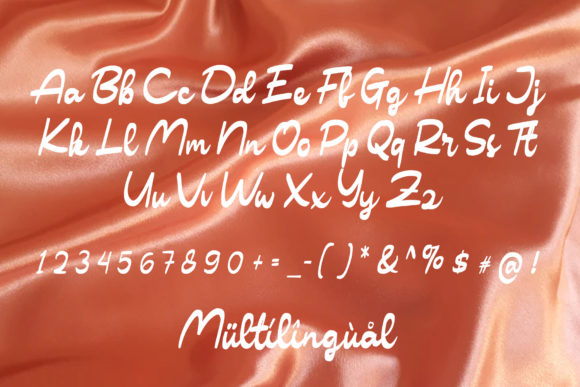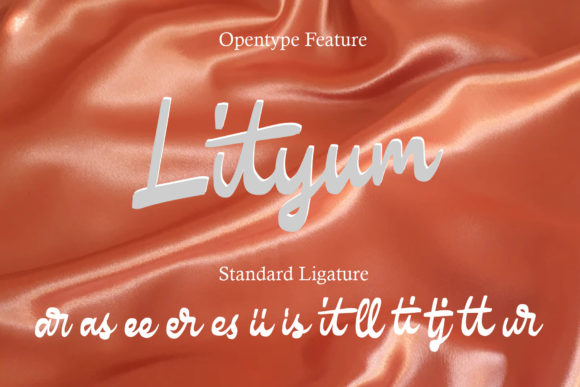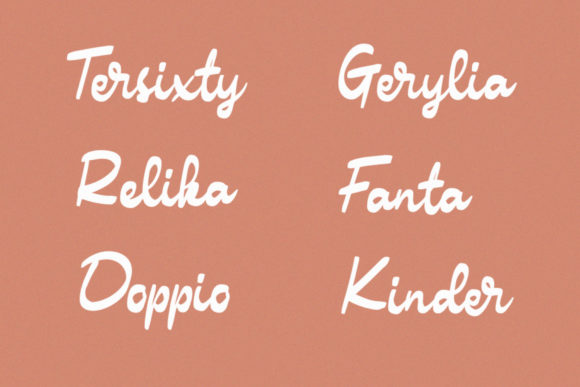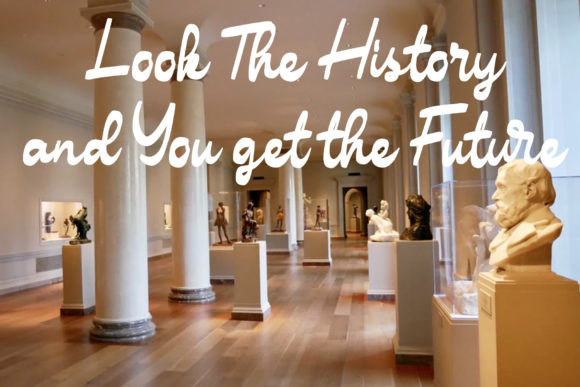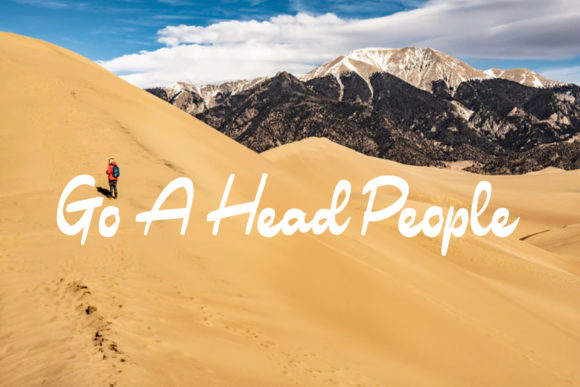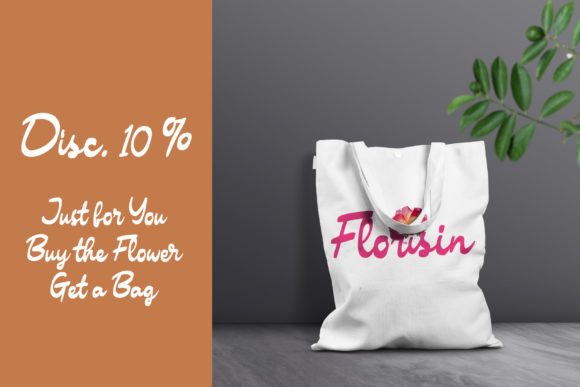
Introduction to Hicksar Font
Have you ever been working on a creative project, pouring your heart and soul into every detail, only to feel like something is missing? That’s when I discovered the Hicksar Font – a game-changer for any design enthusiast. Its sweet and dainty handwritten style adds an incredibly joyful touch to any design, elevating it from good to great.
With Hicksar Font, the possibilities are endless. From wedding invitations to social media graphics, this versatile font is the perfect addition to any design project. So why settle for ordinary when you can make your designs extraordinary with the Hicksar Font?
Key Features of Hicksar Font
- Unique characteristics include a bold, modern design and a wide range of stylistic options for customization.
- Perfect for use in digital design, print materials, and other creative projects where a distinctive font is desired.
Honest Review: Hicksar Font
I recently had the opportunity to work with the Hicksar Font for a creative project and I must say it was a pleasant experience. As a designer, I appreciate a good design resource that can elevate my work and make it stand out.
The Hicksar Font has a unique and stylish design that can add a touch of sophistication to any creative project. The high quality of the font ensures that it looks great on various devices and screen sizes.
- Unique and stylish design
- High quality
- The Hicksar Font may not be suitable for all types of designs, particularly those that require a more minimalist or modern look.
Overall, I was impressed with the Hicksar Font and would recommend it to designers who are looking for a high-quality, unique font to add some flair to their creative project.
Hicksar Font is ideal for creative projects, such as logos, brochures, and social media graphics. Its unique design makes it a great addition to any design resource library.